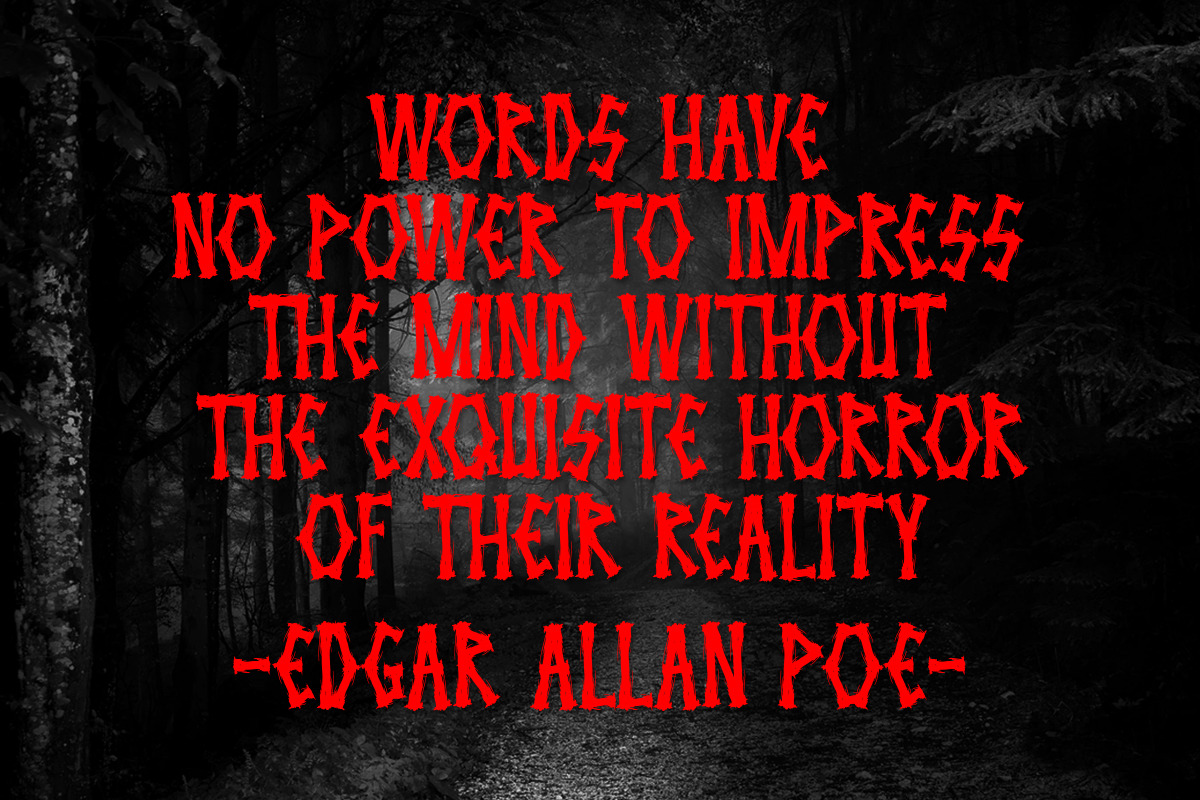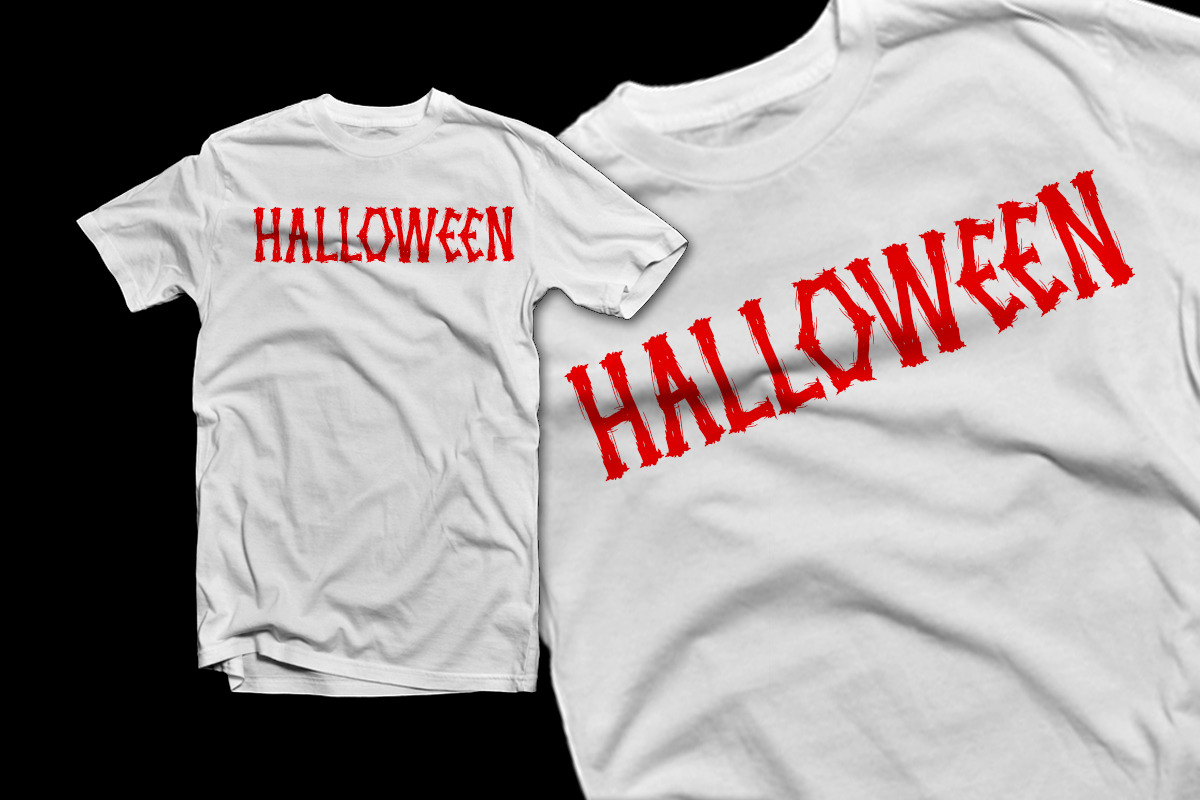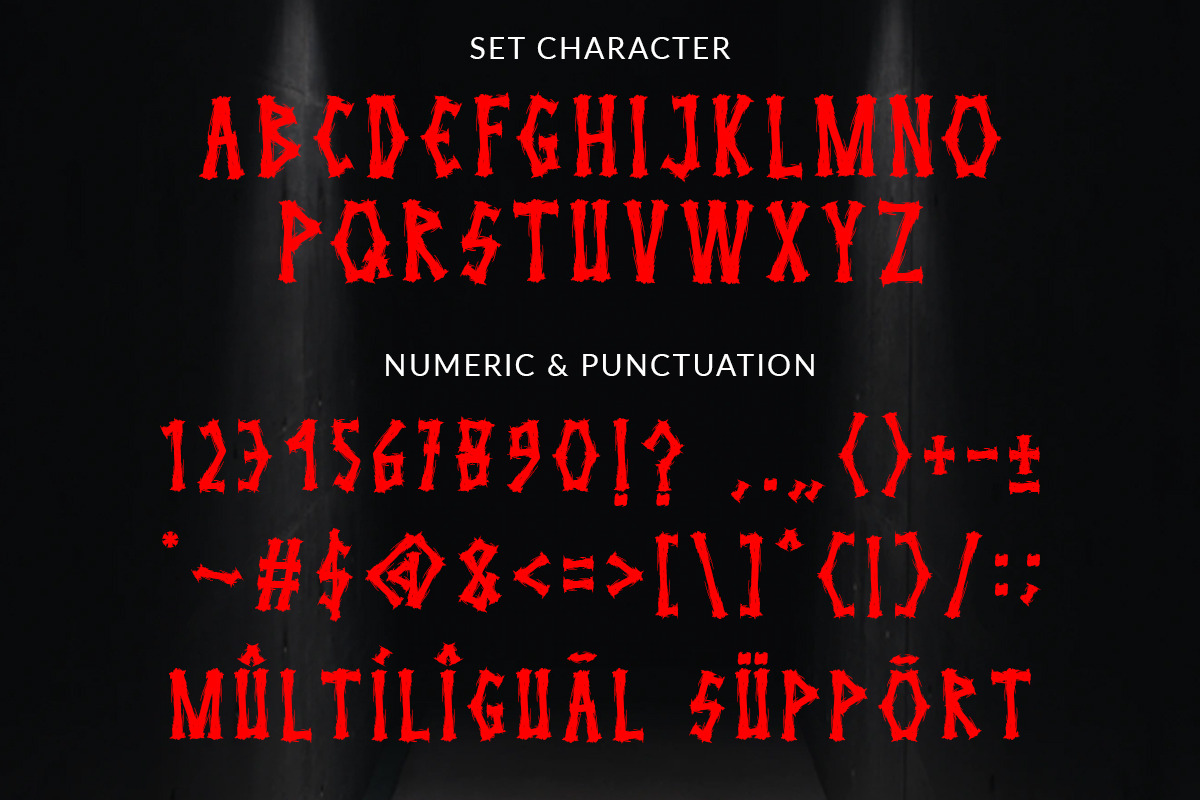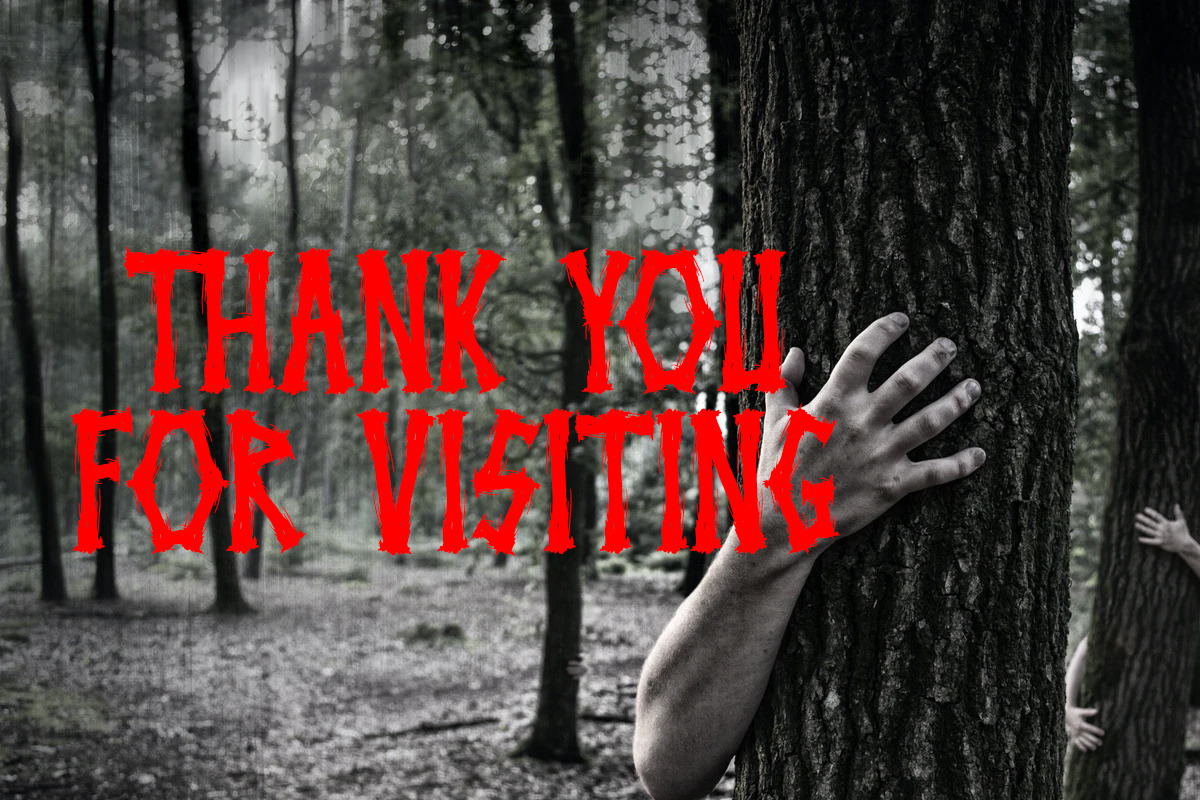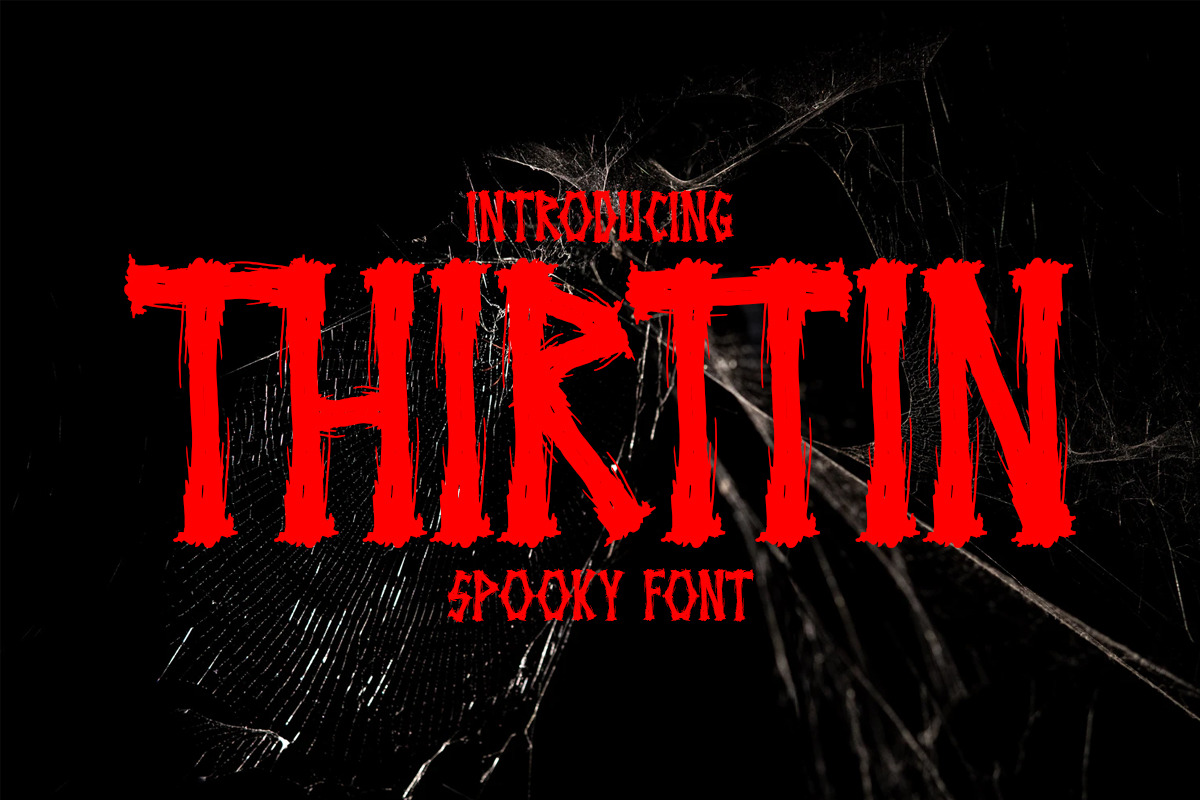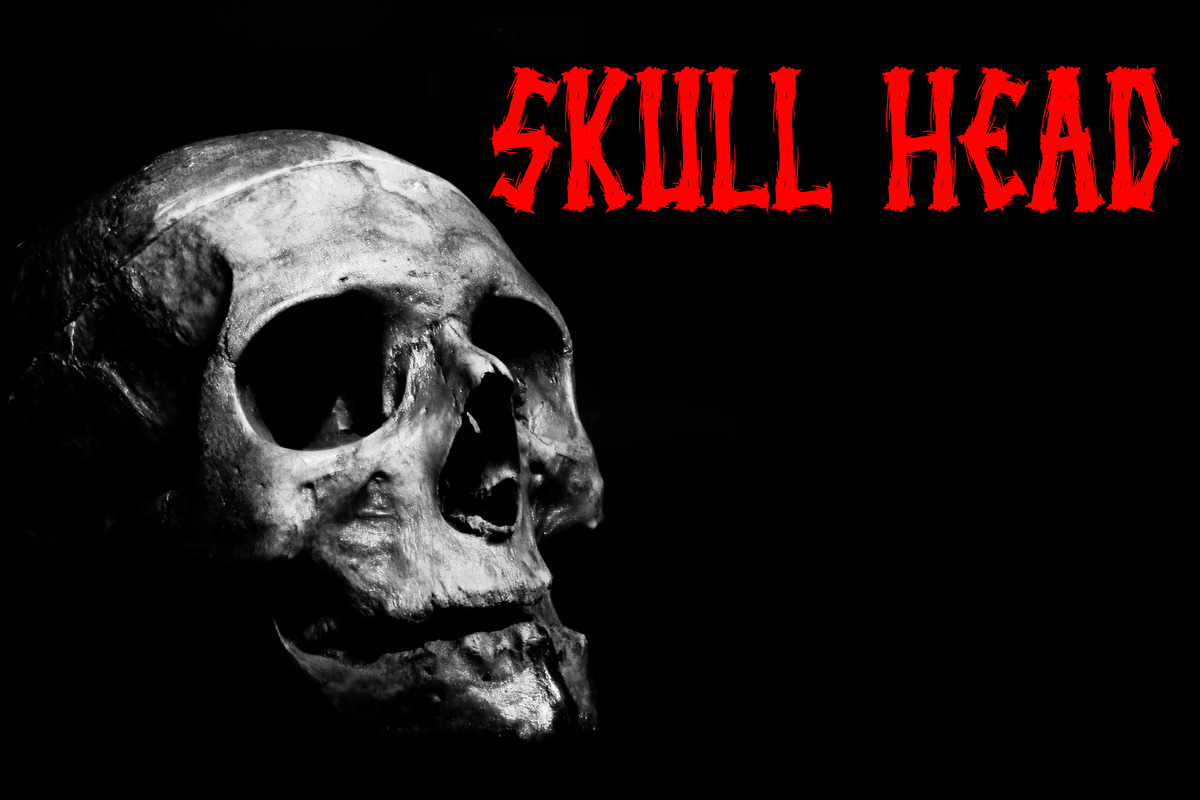
THIRTTIN - SPOOKY HALLOWEEN FONT
Hello .... THIRTTIN is a creepy style font with mystical lines in it, this font is perfect for anything creepy, such as horror posters, spooky designs, and anything related to scary things. etc.